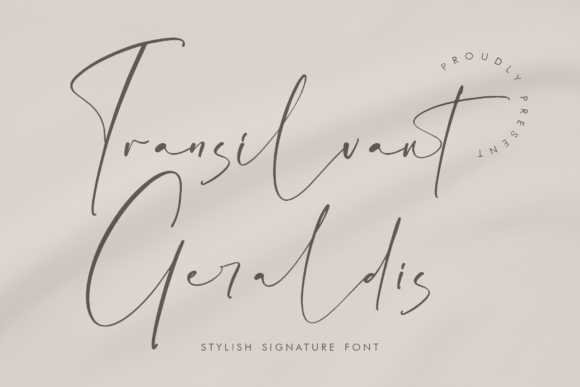
Introducing Transilvant Geraldis, a script font family that encapsulates luxury and sophistication. Step into a world of elegance with this exceptional font, meticulously crafted by Storytype Studio, renowned for their creative prowess.
Transilvant Geraldis is not just a font; it's an artistic expression that brings your creative visions to life. Its unique style and modern flair command attention, making it the perfect choice for crafting elegant logos that exude luxury. Unleash your imagination and design book or movie titles that captivate audiences, leaving an unforgettable impression.
Fashion brands, magazines, and clothing lines will find Transilvant Geraldis an invaluable asset. Its timeless appeal adds a touch of class to any design, enhancing the visual impact of your products. Create lettering that resonates with your audience, evoking emotions and leaving a lasting impact.
With Transilvant Geraldis, quotes take on a new life. Transform ordinary words into captivating expressions, inspiring and engaging your readers. Its versatility extends to a myriad of applications, making it the ideal choice for a diverse range of creative projects.
Transilvant Geraldis is more than just a font; it's an experience. Its beauty and functionality will elevate your designs, captivating your audience with its timeless elegance. Embrace the spirit of creativity and embark on a journey of artistic expression with Transilvant Geraldis.